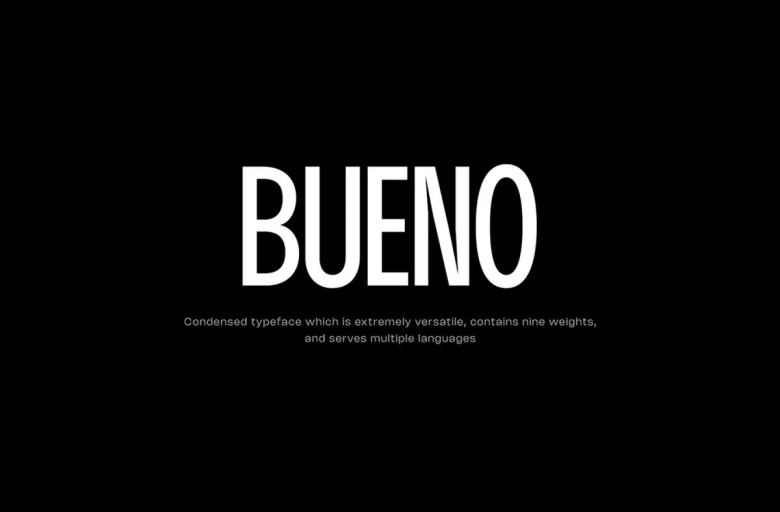
Bueno Font
“Bueno” is a condensed, display typeface that grabs attention and adds a unique period flair to the design. Suitable to a wide range of graphic types, it has its own physical force and style. Outside branding or logos for all sorts of products, it might be graphic art, packaging, editorial, there is so little that this typeface cannot do.
Bueno Sans Serif Font